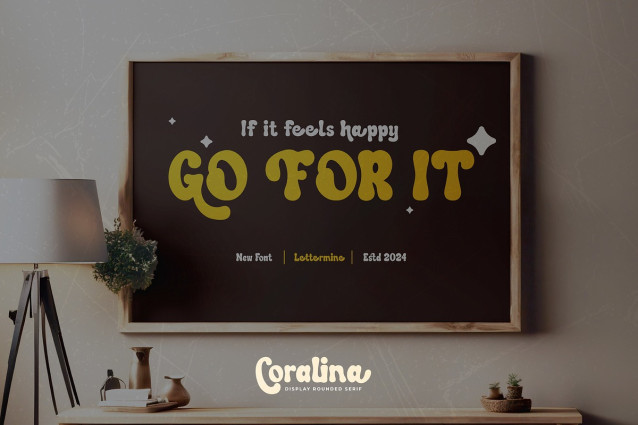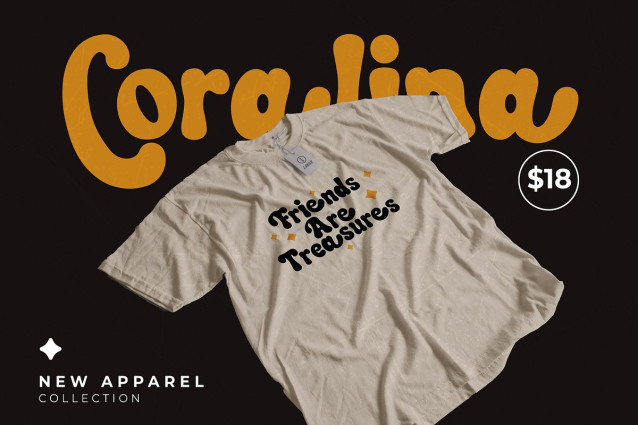
Coralina Font
Coralina Font Your go-to Retro Serif font for adding a touch of vintage charm to your projects. With its timeless appeal and versatile features, this font is designed to elevate your designs effortlessly.